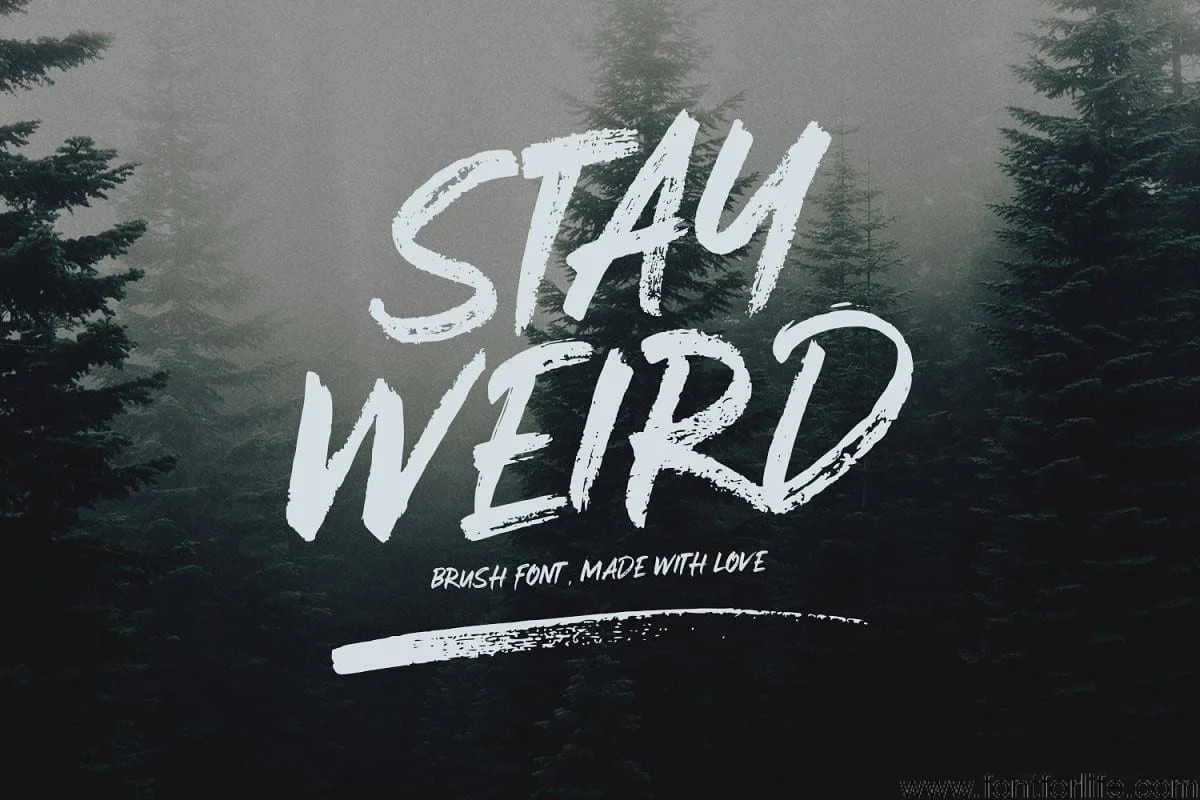
Stay Weird Brush Font Swashes is perfect for quirky brand logos, indie coffee shop signage, creative t-shirt designs, motivational quote graphics, alternative lifestyle blogs, artistic posters, unique greeting cards, craft beer labels, unconventional social media content, and playful packaging that celebrates individuality and creative expression.
This font is exciting because it embraces imperfection and authenticity through energetic brush strokes that feel spontaneous, raw, and genuinely handmade. The included swashes add extra personality and flair, allowing designers to create custom compositions that break conventional rules and encourage viewers to embrace their unique qualities with confidence and pride.
The Stay Weird Brush Font Swashes family typically includes uppercase and lowercase characters, numerals, punctuation marks, decorative swashes, textured brush elements, and alternative glyphs that enable designers to craft distinctively personal and expressive projects with artistic freedom.
Whether you're designing for creative entrepreneurs, developing bold brand identities for unconventional businesses, or creating inspirational content that encourages self-expression and authenticity, Stay Weird Brush Font Swashes Free Download delivers the perfect typographic voice for celebrating uniqueness. Its rebellious spirit and artistic character make every project feel more genuine and memorable, ensuring your designs stand out while inspiring audiences to embrace their individuality and creative differences.